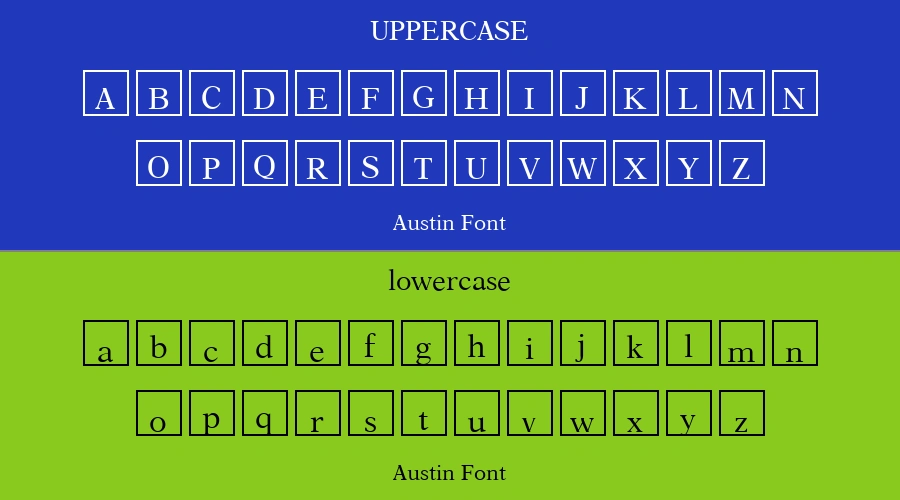
About Austin Font
Austin Font represents a sophisticated approach to type design, balancing sharp terminals with professional standards. Perfect for magazine layout, this font family showcases impressive accuracy and practical utility throughout its character set. Designers appreciate its versatility and reliability.
Designers will appreciate nuanced touches including elegant curves and case-sensitive forms, adding sophistication to any project. These features become apparent in image captions, where output consistency matters most. The careful treatment of ear formation and design lineage ensures optimal performance.